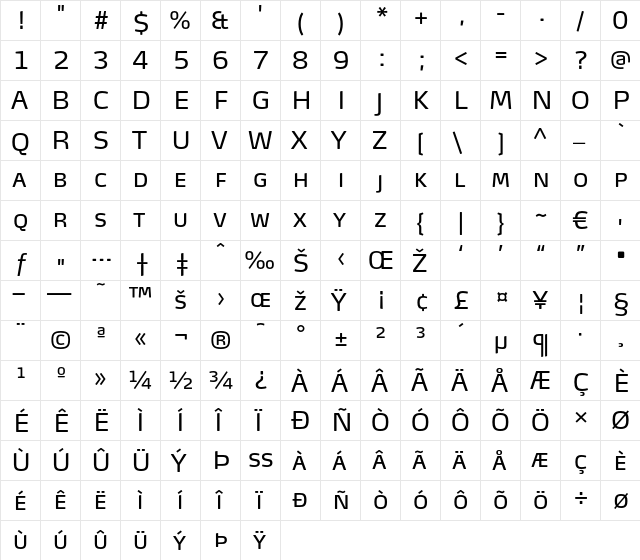
MaxTF-RegularSC Regular Font Preview
MaxTF-RegularSC Regular
MaxTF-RegularSC Regular Font Details
Design Context for MaxTF-RegularSC Typeface
MaxTF-RegularSC takes a measured approach to typography — its balanced proportions and neutral character make it a reliable workhorse for both digital and print work.